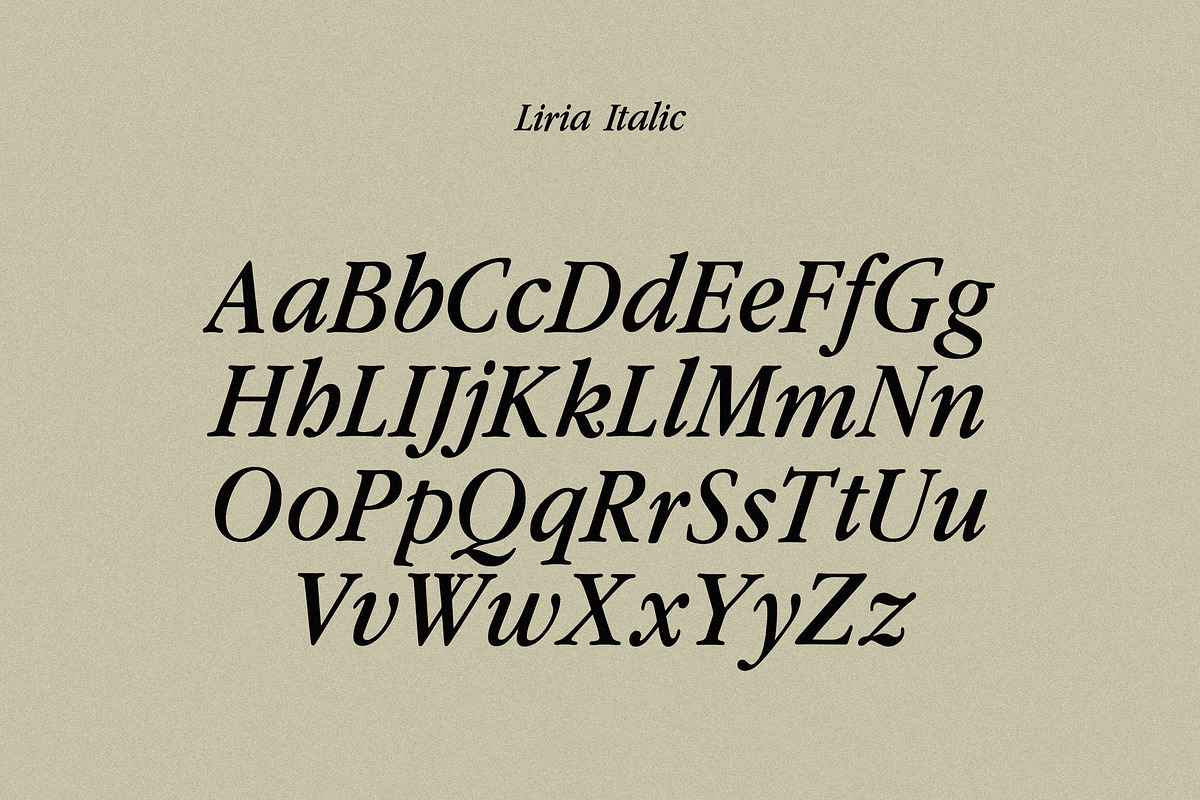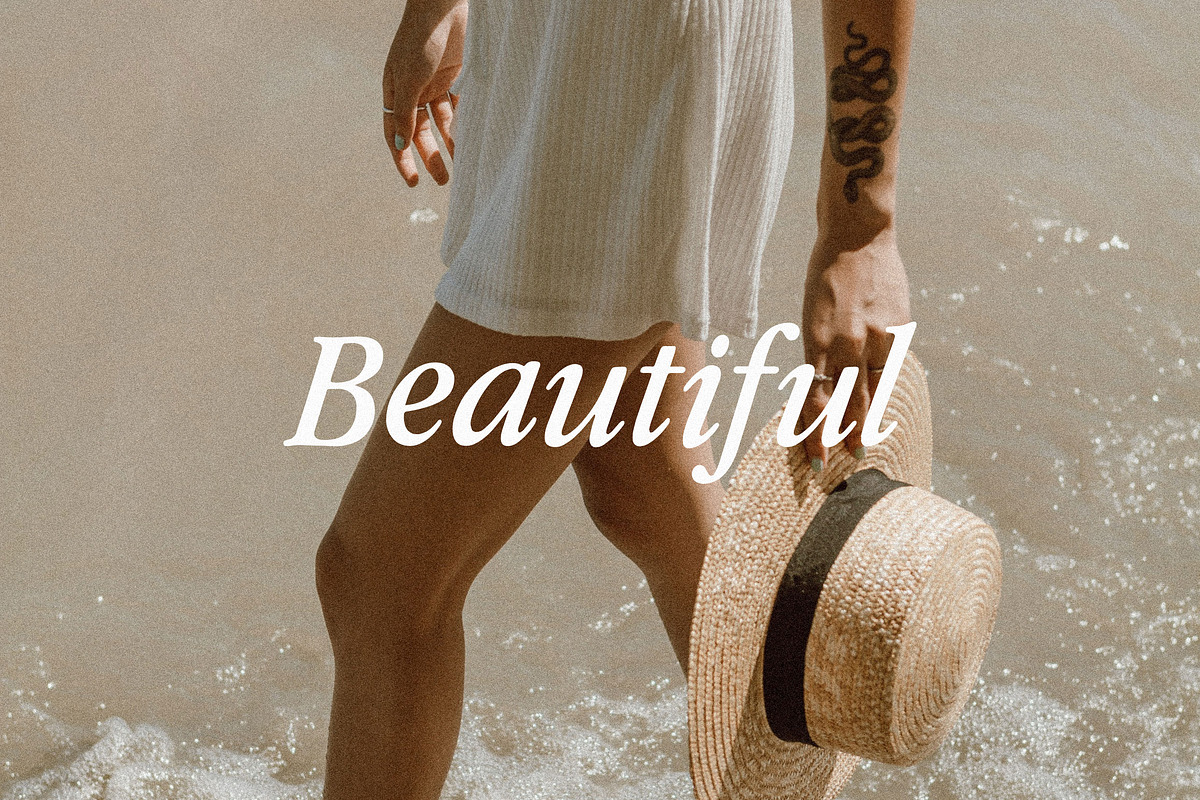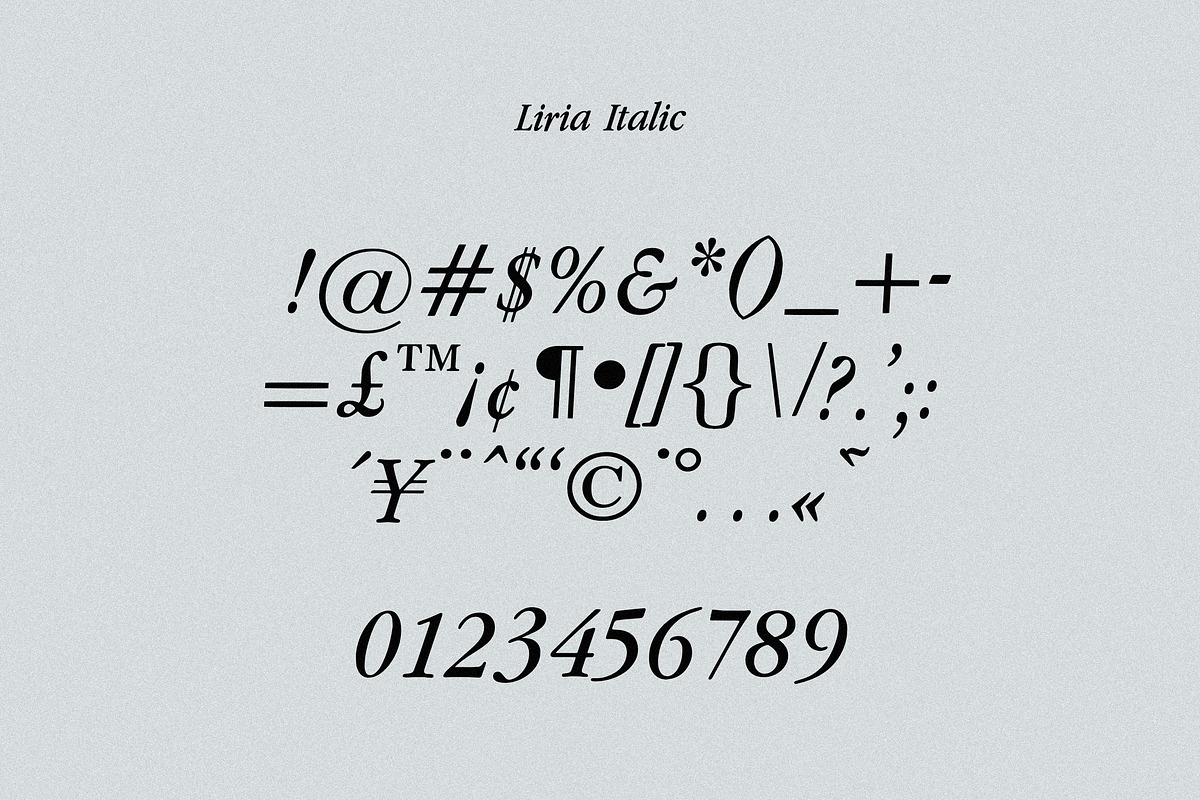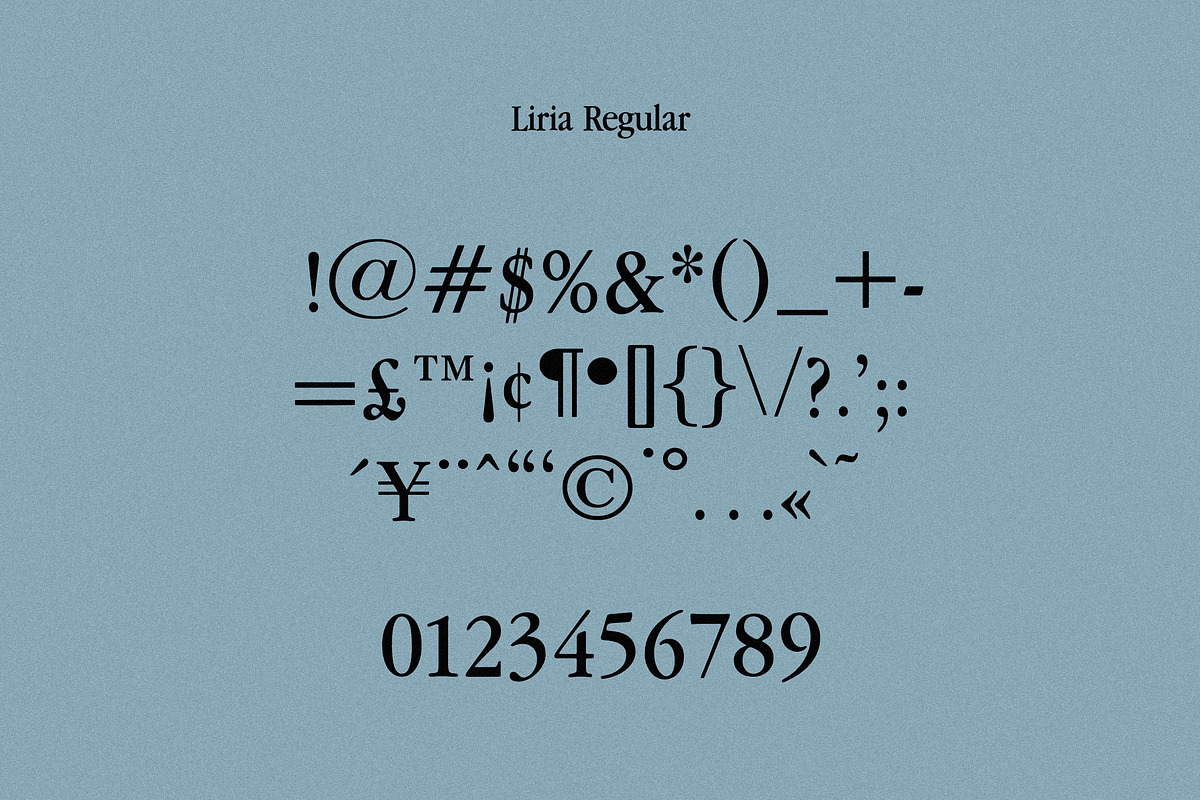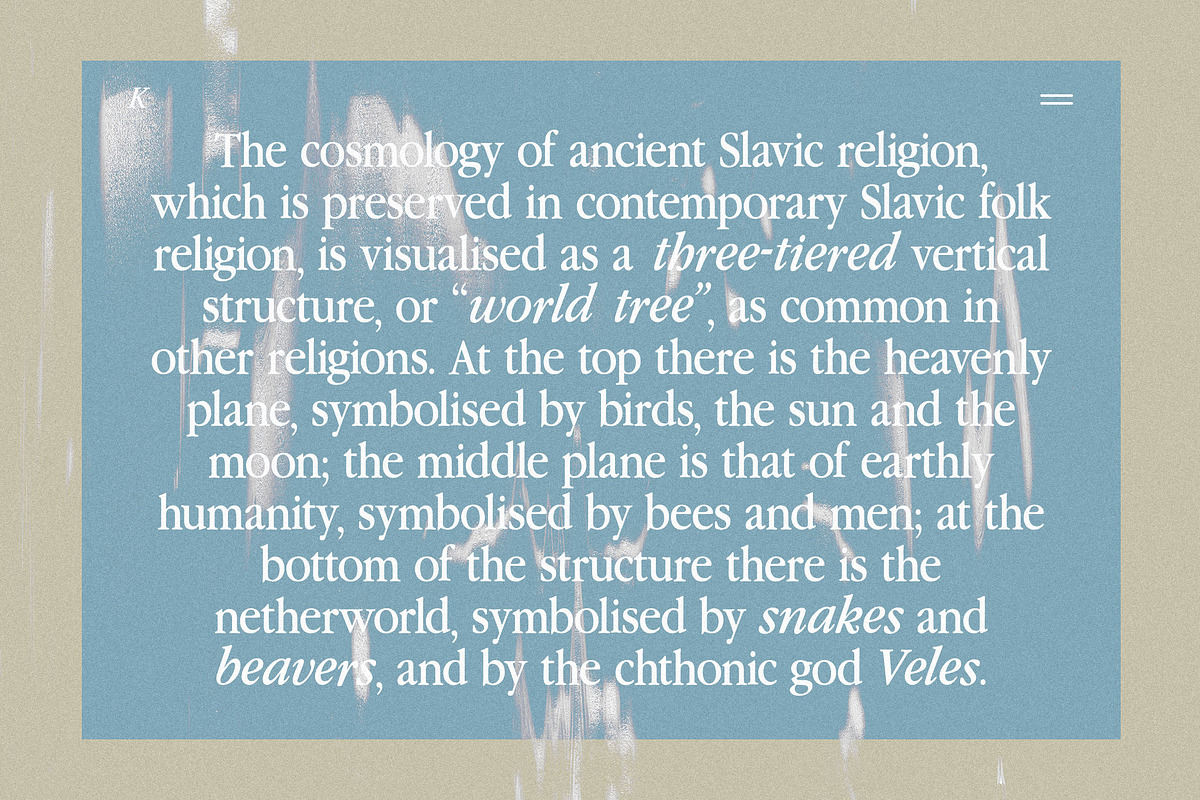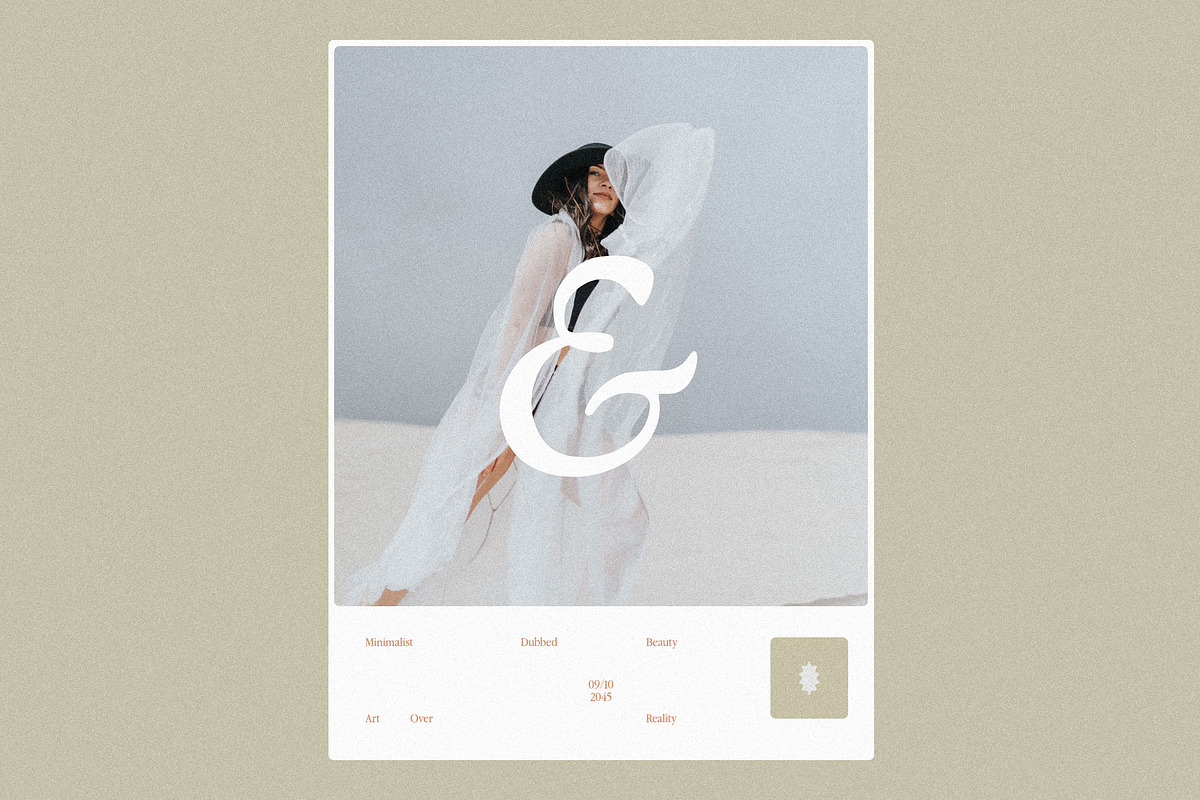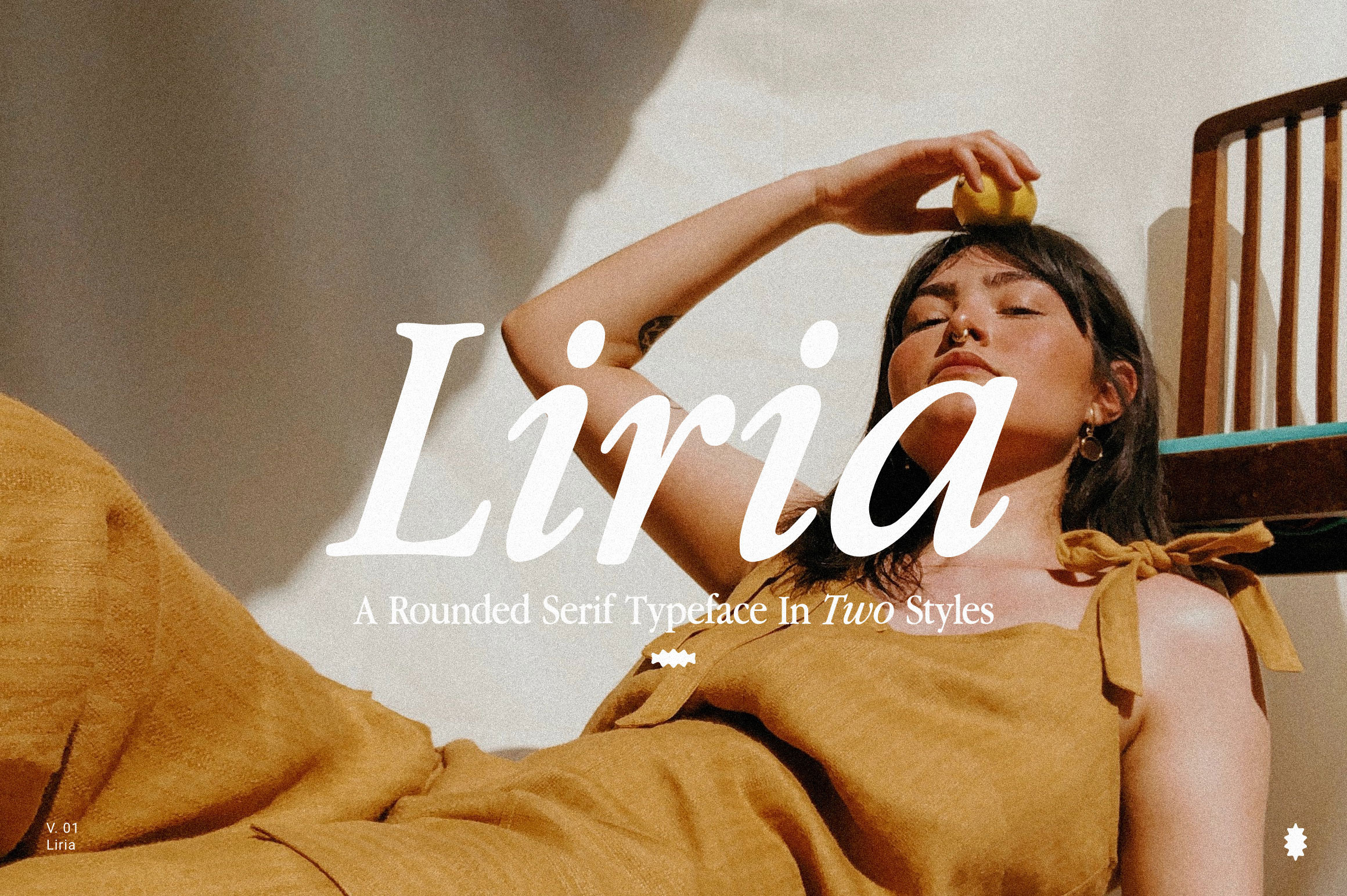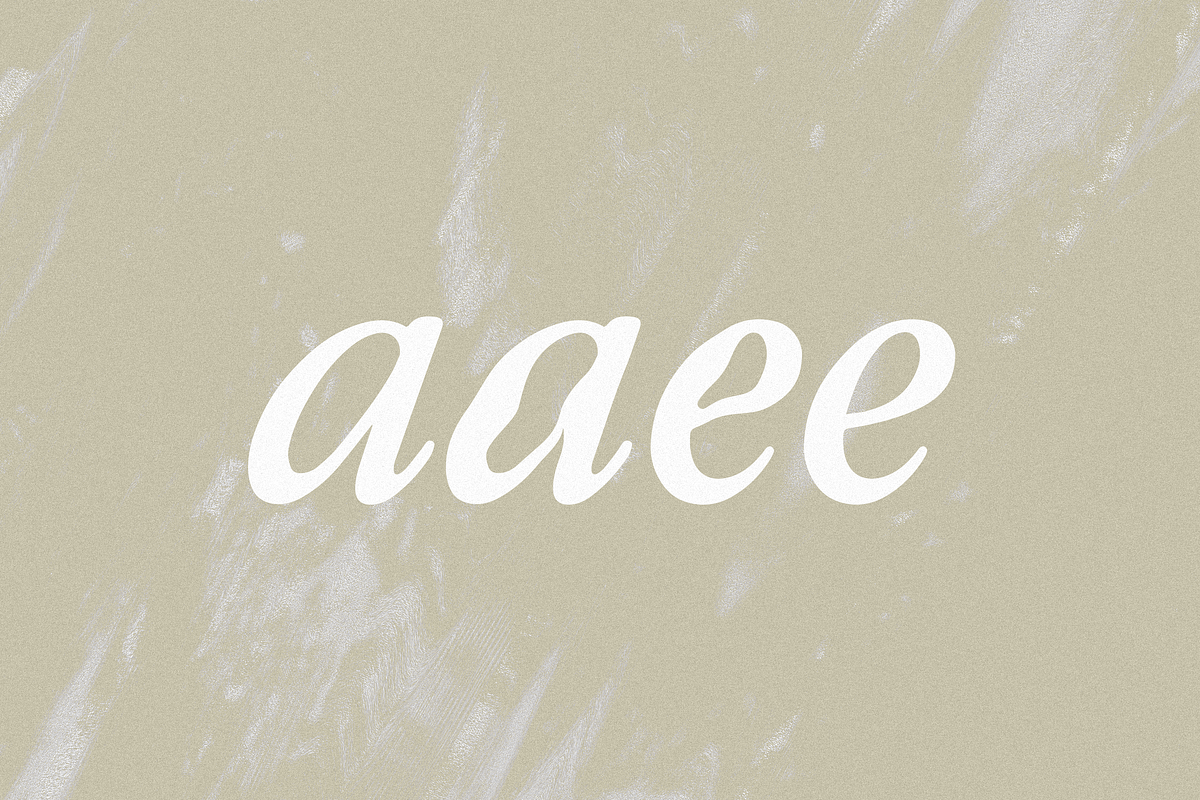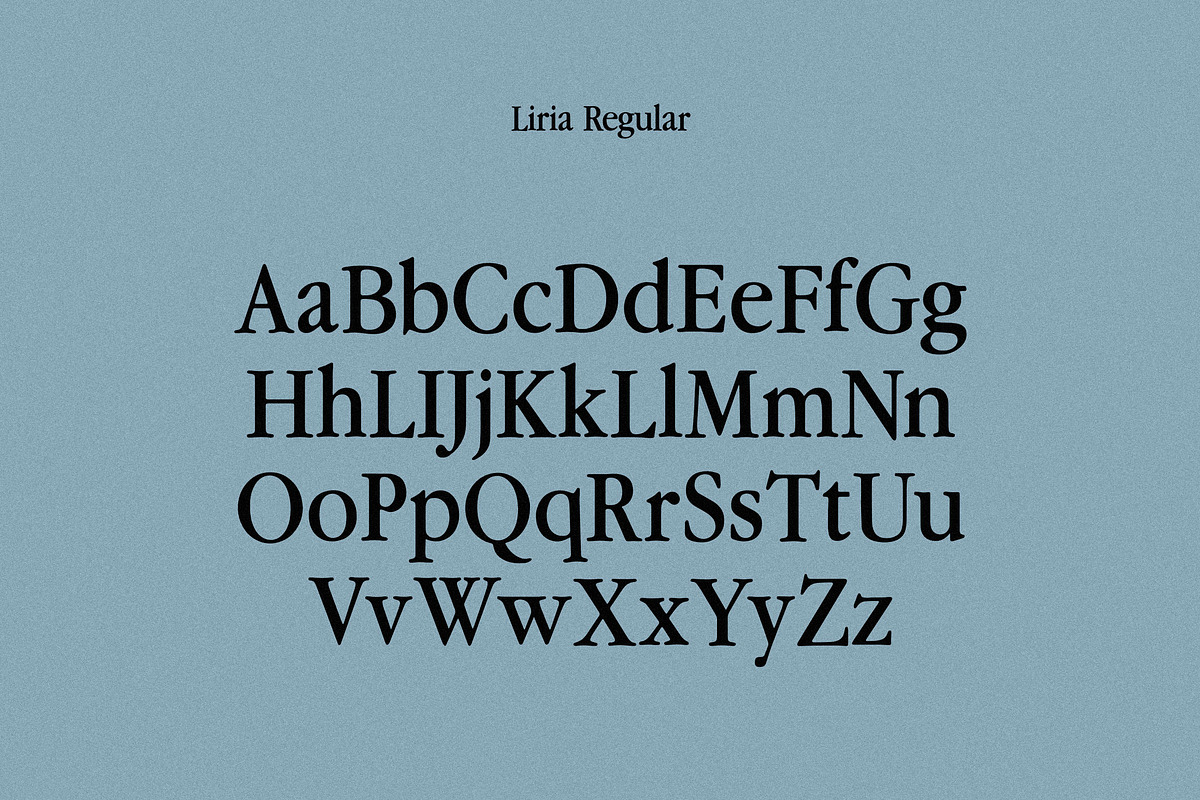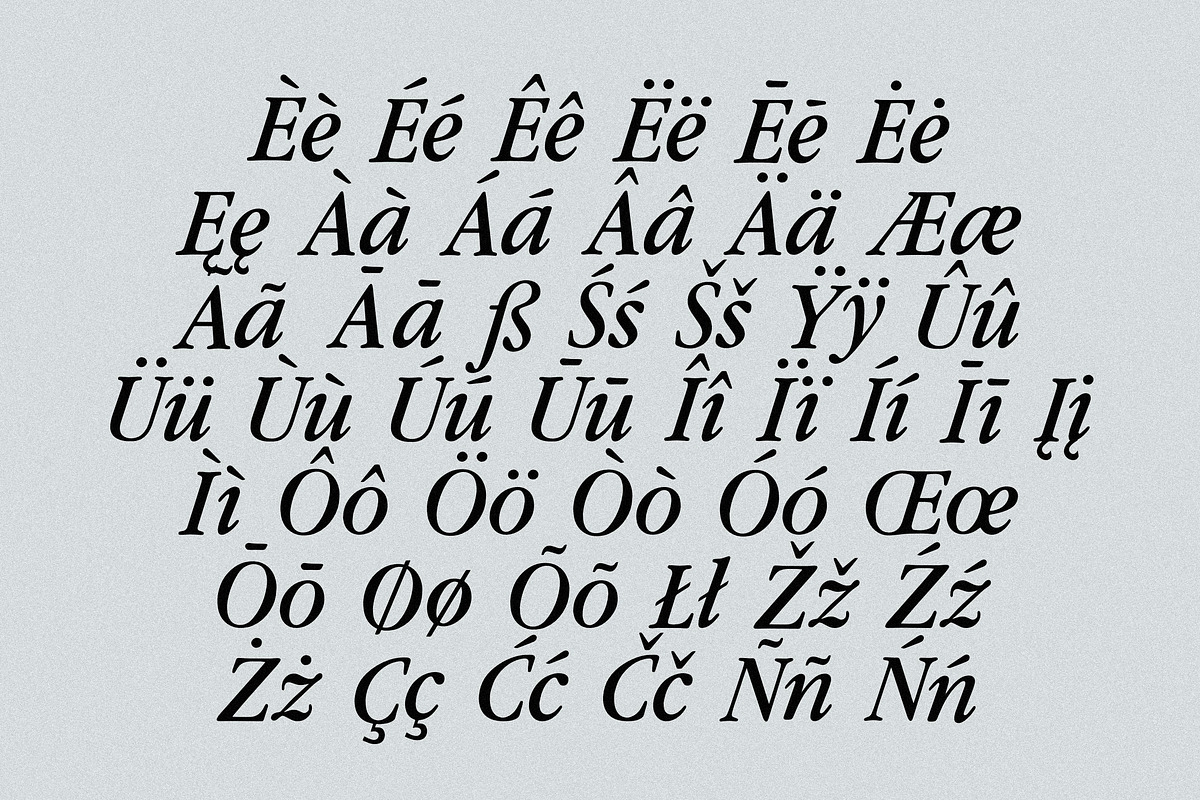
Liria Serif Typeface
Introducing Liria Serif Typeface
Perfect for large headlines or body text, for print or web based projects.
Have fun mixing Regular and Italic styles to add that 90s look to your designs.
The typeface includes:
- Liria Regular (uppercase & lowercase)
- Liria Italic (uppercase & lowercase)
- Foreign language support